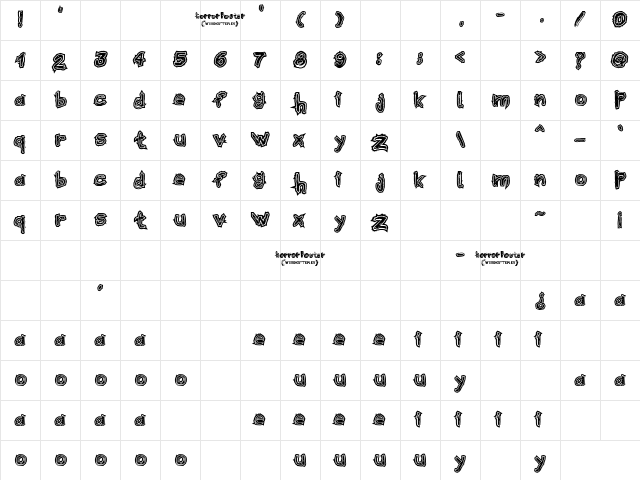
Horror Poster Regular Free Font
Horror Poster Regular
Designer: Woodcutter Manero
Design Context for Horror Poster
Horror Poster carries an unsettling edge - its distorted letterforms are built to unsettle, perfectly suited to horror, Halloween, and dark creative work.
Font Pairing: Pair with a clean neutral sans-serif for body copy to let Horror Poster's character lead without overwhelming the composition.
Pro Tip: Use Horror Poster at larger display sizes for maximum impact. Consider generous tracking to let the disturbing character of each letterform breathe.